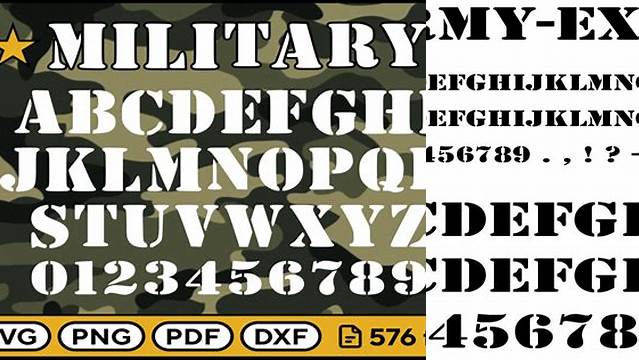
Army Expanded Font: Free Download Options
Hey guys! Are you on the hunt for that perfect army expanded font to give your projects a bold and powerful look? You've landed in the right spot! This article is your ultimate guide to finding, downloading, and using army expanded fonts – all while keeping it free and legal. We’ll dive deep into the world of this specific font style, exploring everything from its uses and variations to the best places to snag it for your designs. So, buckle up and let's get started!
1. What is Army Expanded Font?
So, what exactly is an army expanded font? Think of it as a typeface that screams strength, authority, and maybe even a little bit of grit. These fonts usually feature bold, blocky letters with a slightly widened or extended appearance, reminiscent of military stencils and signage. They're perfect for adding a touch of ruggedness and impact to your designs. An army expanded font is often used to convey a sense of power and stability, making it a go-to choice for projects that need to make a statement. Imagine seeing this font on posters, video game titles, or even branding materials – it instantly grabs your attention. But it’s not just about looking tough; the expanded nature of the font also ensures readability, even from a distance or in smaller sizes. This makes it versatile for a wide range of applications, from headlines and logos to captions and labels.
2. Common Uses of Army Expanded Fonts
Now, let's talk about where you might actually use an army expanded font. These fonts are incredibly versatile and can be seen across a variety of media. Think about movie posters, video game titles, and even product packaging – if you want something to look strong and impactful, this font is your friend. Another common use is in branding materials for businesses that want to project a sense of reliability and authority. Imagine a security company or a construction firm using an army expanded font in their logo – it immediately conveys trust and stability. But it doesn't stop there! You'll also find these fonts in graphic design projects, such as flyers, banners, and even social media graphics. They're great for headlines and subheadings that need to grab attention. Plus, with the rise of digital content, army expanded fonts are making their way into website designs and user interfaces, adding a touch of boldness and clarity to the online world.
3. Key Characteristics of Army Expanded Fonts
What makes an army expanded font so recognizable? Well, there are a few key characteristics that set it apart. First off, the bold weight is a major factor. These fonts are designed to be thick and sturdy, making them stand out in any setting. Then there's the expanded width, which gives the letters a stretched-out appearance, adding to the sense of presence. You'll also notice the blocky, sans-serif design, which contributes to the clean and modern look. Many army expanded fonts also incorporate stencil-like elements, mimicking the style of military stencils. This adds an extra layer of authenticity and ruggedness to the font. And let's not forget about readability. Despite their bold and expanded nature, these fonts are designed to be easily read, even from a distance or in challenging conditions. This combination of strength, clarity, and style makes army expanded fonts a popular choice for designers and creators alike.